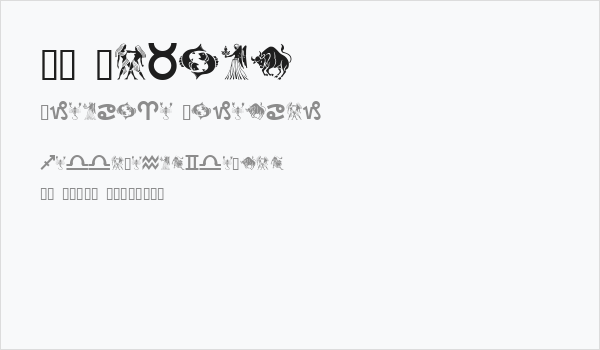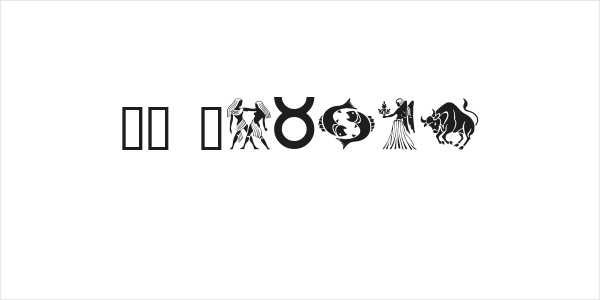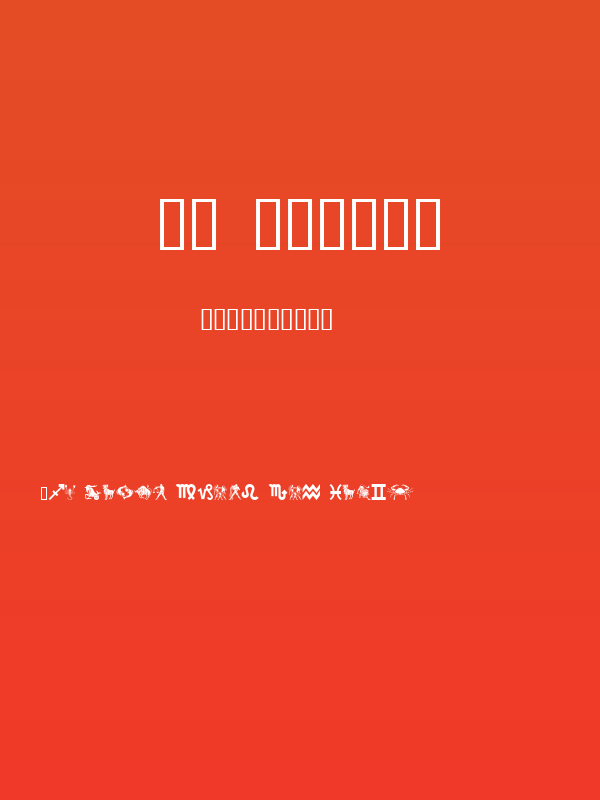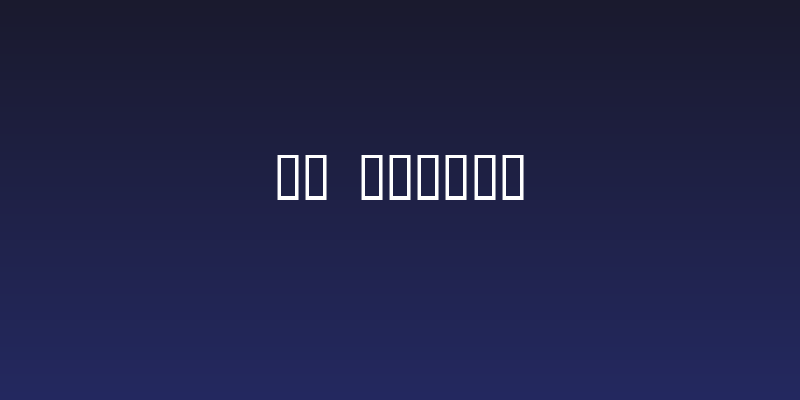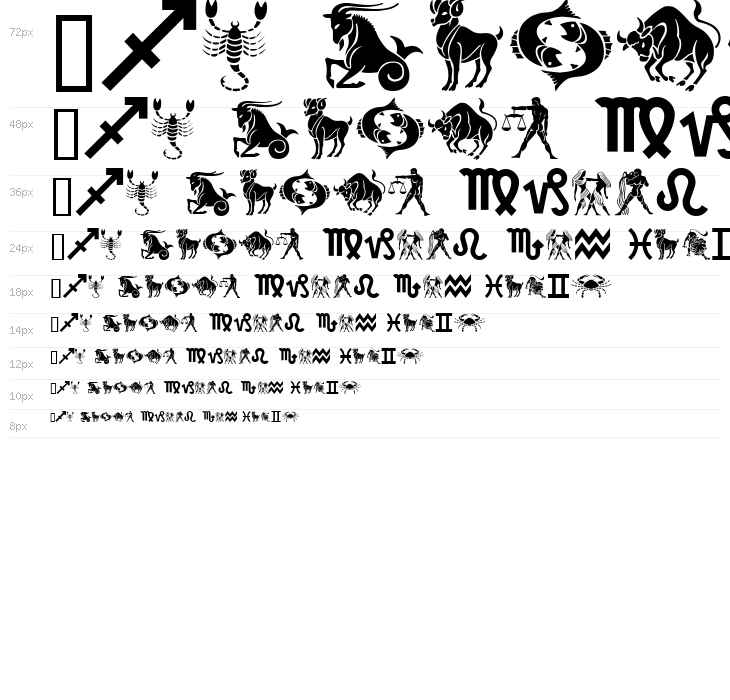
GE Zodiac Font
GE Zodiac Description
This is a decorative font featuring zodiac symbols instead of traditional alphanumeric characters. Each symbol represents a different zodiac sign, capturing the essence of astrological imagery. The symbols are intricately designed, with a mix of bold and delicate lines that create a visually striking appearance. The font is ideal for projects that require a mystical or astrological theme, offering a unique way to incorporate zodiac signs into design work. The symbols are evenly spaced, ensuring clarity and readability despite their decorative nature.
| Use Case | Logos, Posters, Themed Invitations |
| Proposed Projects | Ideal for astrological-themed designs, horoscopes, mystical event invitations, or zodiac-related merchandise. |